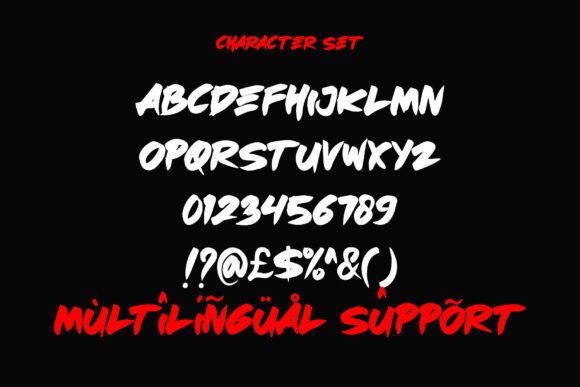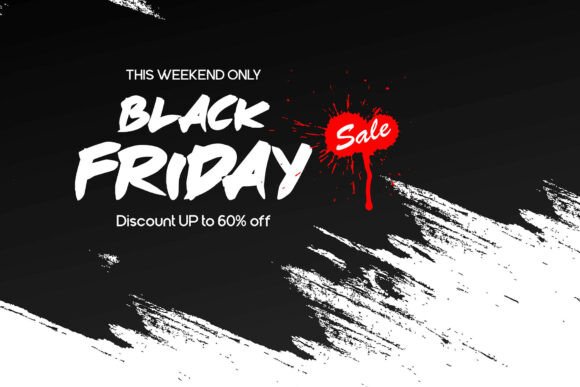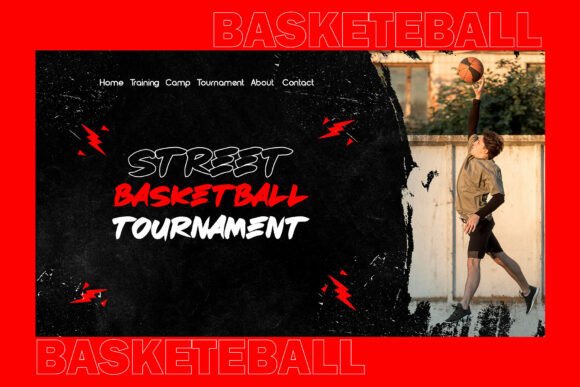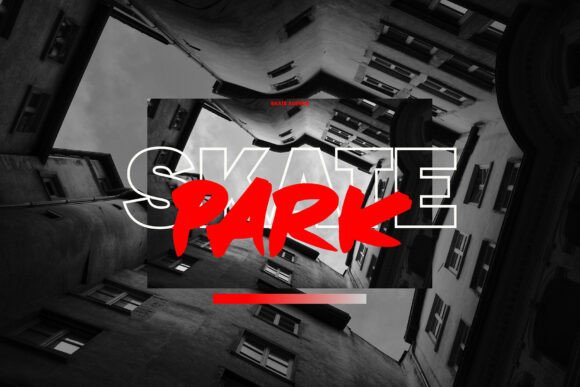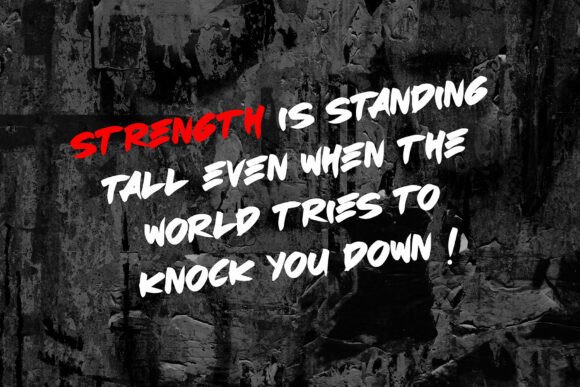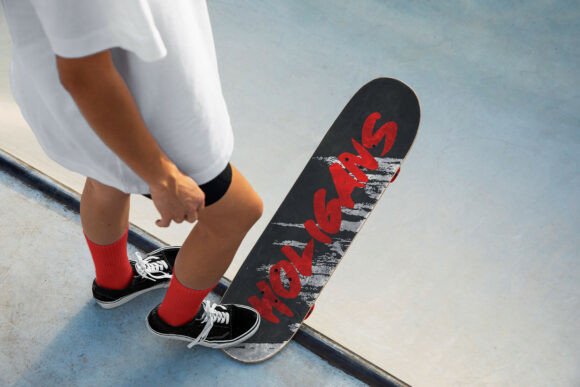
Unleash Raw Energy and Street-Smart Style with the Abakura Font
In the world of typography, few fonts capture the essence of urban art and street culture as effectively as the Abakura font. This powerful handwritten brush typeface is designed to convey the spontaneous, unbridled energy of street art, making it a premier choice for designers and crafters looking to add a touch of rebellion and authenticity to their work.
The Inspiration Behind Abakura
The Abakura font draws inspiration from the raw, unfiltered world of street art. Its aggressive, textured strokes and sharp terminals evoke the quick motion of a flat brush or marker on a city wall, giving it a sense of urgency and dynamism that is hard to ignore. The font’s bold, slanted nature makes it perfect for high-impact messaging, allowing designers to create bold statements that demand attention.
Key Features of the Abakura Font
- Handwritten Brush Typeface: The Abakura font is a true handwritten brush typeface, with each letter and character bearing the unique imperfections and texture of a brush stroke.
- Aggressive and Textured Strokes: The font’s strokes are bold and textured, giving it a rough, organic feel that is reminiscent of street art.
- Sharp Terminals: The sharp terminals of the Abakura font add to its sense of dynamism and energy, giving it a sense of movement and spontaneity.
- Bold and Slanted: The font’s bold, slanted nature makes it perfect for high-impact messaging and attention-grabbing headlines.
Perfect for Action-Sports Branding, Music Festivals, and Streetwear Labels
The Abakura font is particularly well-suited for action-sports branding, music festival posters, and streetwear labels. Its bold, energetic vibe makes it a natural fit for environments where the typography needs to feel “loud” and dynamic. Whether you’re designing a logo for a skateboard company or a poster for a music festival, the Abakura font is sure to make a statement.
Pairing the Abakura Font with Other Typefaces
To get the most out of the Abakura font, it’s often best to pair it with a clean, monospaced secondary font. This helps to ground the font’s wild energy with a touch of technical contrast, creating a visually appealing balance of styles. Some good options for pairing with Abakura include fonts like Arial, Helvetica, or Open Sans.
Tips for Using the Abakura Font
- Use High-Contrast Color Palettes: The Abakura font looks incredible when used with high-contrast color palettes like white-on-black or neon-on-dark. Experiment with different color combinations to find the one that works best for your design.
- Experiment with Different Sizes: The Abakura font can be used at a variety of sizes, from large headlines to smaller body text. Experiment with different sizes to find the one that works best for your design.
- Don’t Be Afraid to Get Creative: The Abakura font is all about raw energy and street-smart style. Don’t be afraid to get creative and try new things – it’s all part of the font’s charm.
The Abakura font is a powerful tool for designers and crafters looking to add a touch of raw energy and street-smart style to their work. With its aggressive, textured strokes and sharp terminals, it’s the perfect choice for high-impact messaging and attention-grabbing headlines. Whether you’re designing a logo for a streetwear label or a poster for a music festival, the Abakura font is sure to make a statement. So why wait? Unleash the raw energy of the Abakura font and take your designs to the next level.